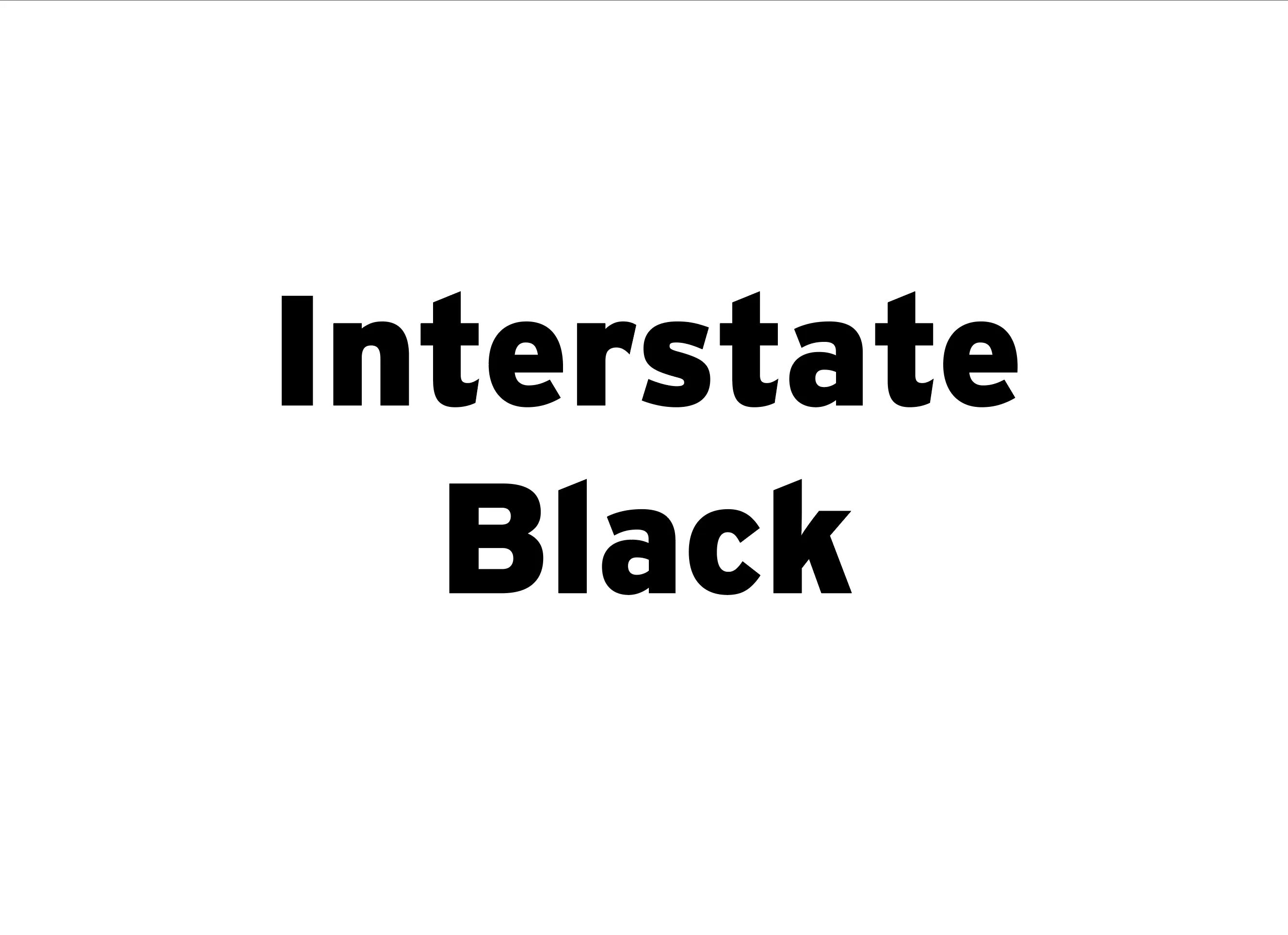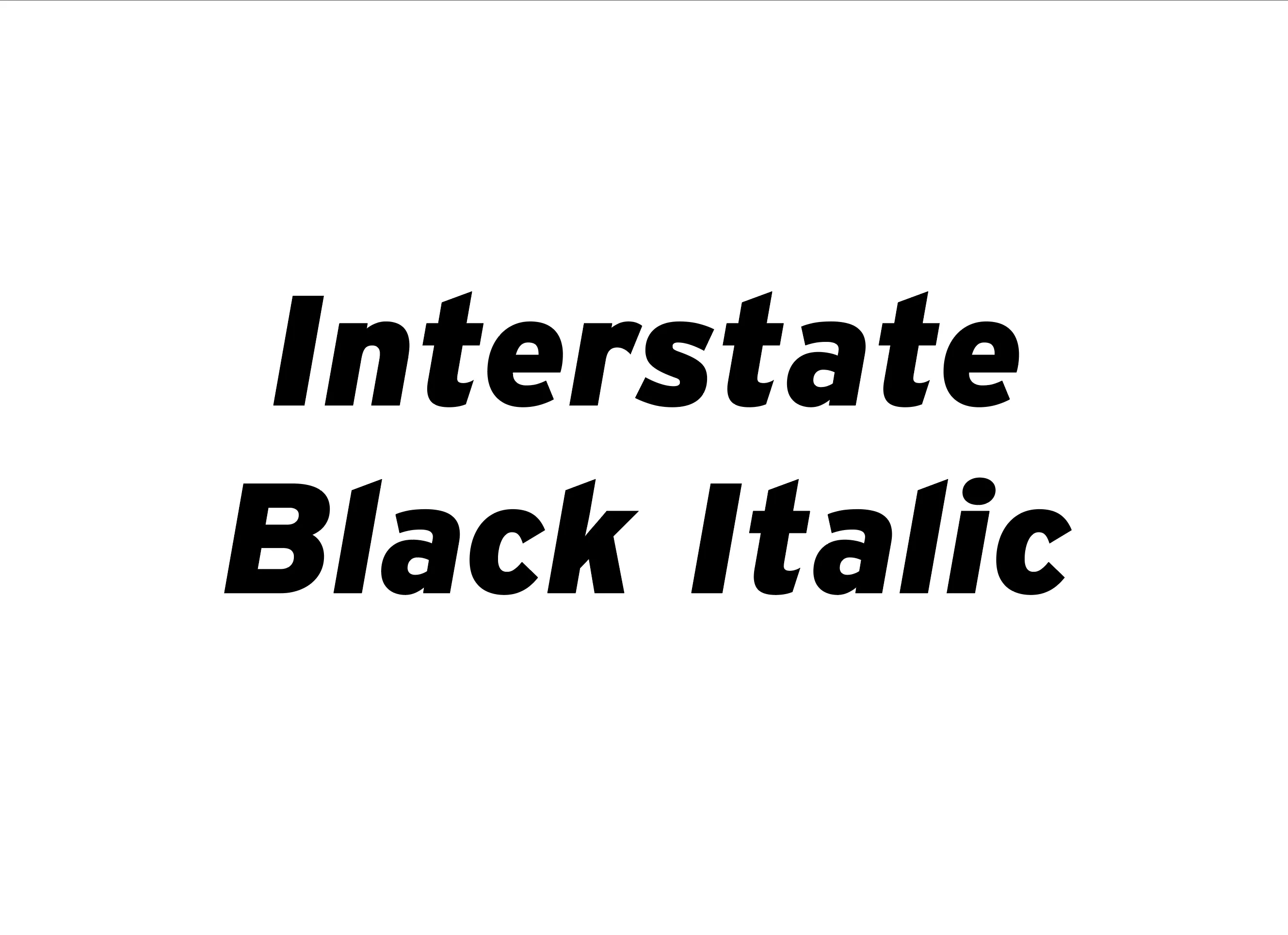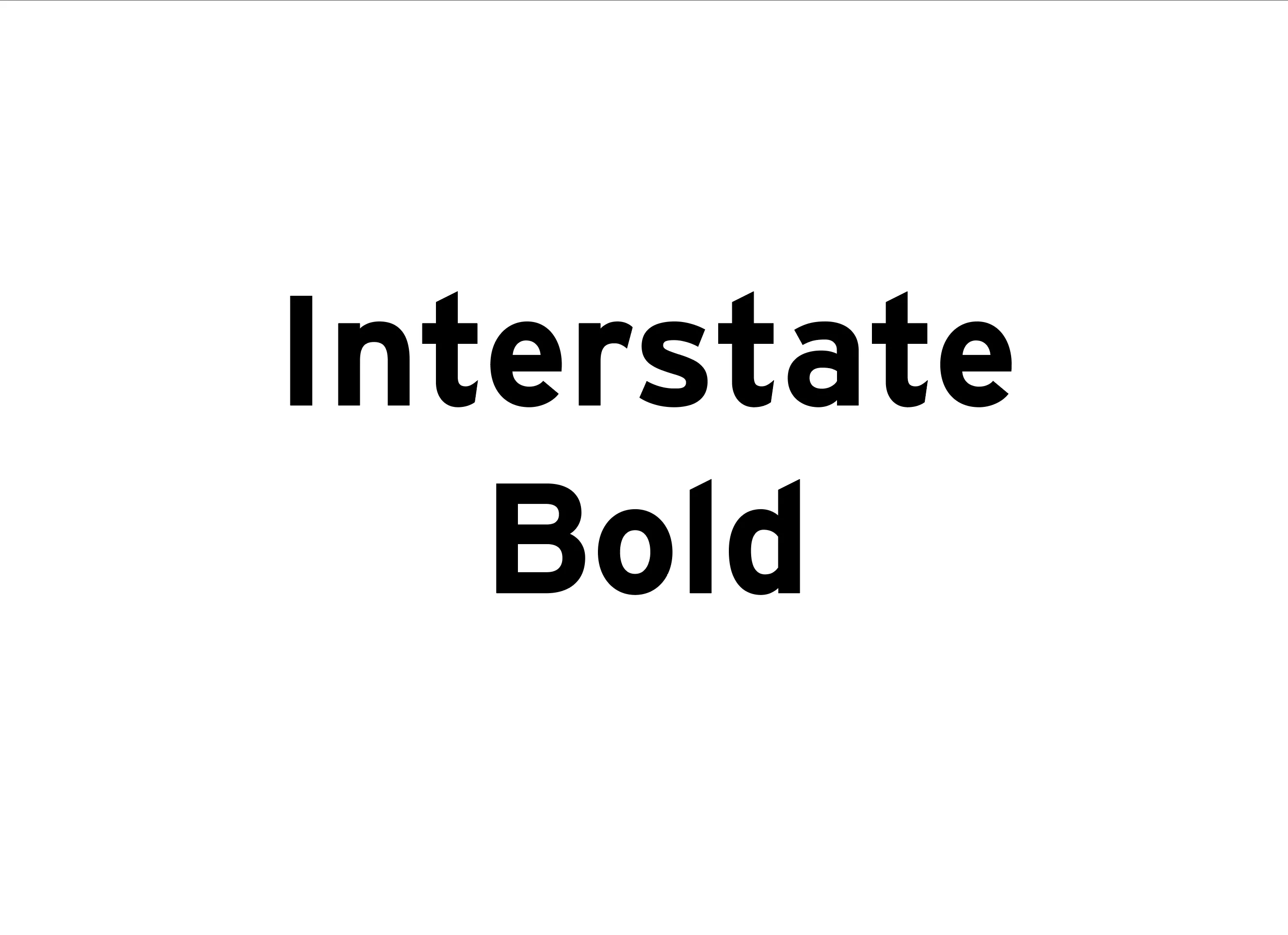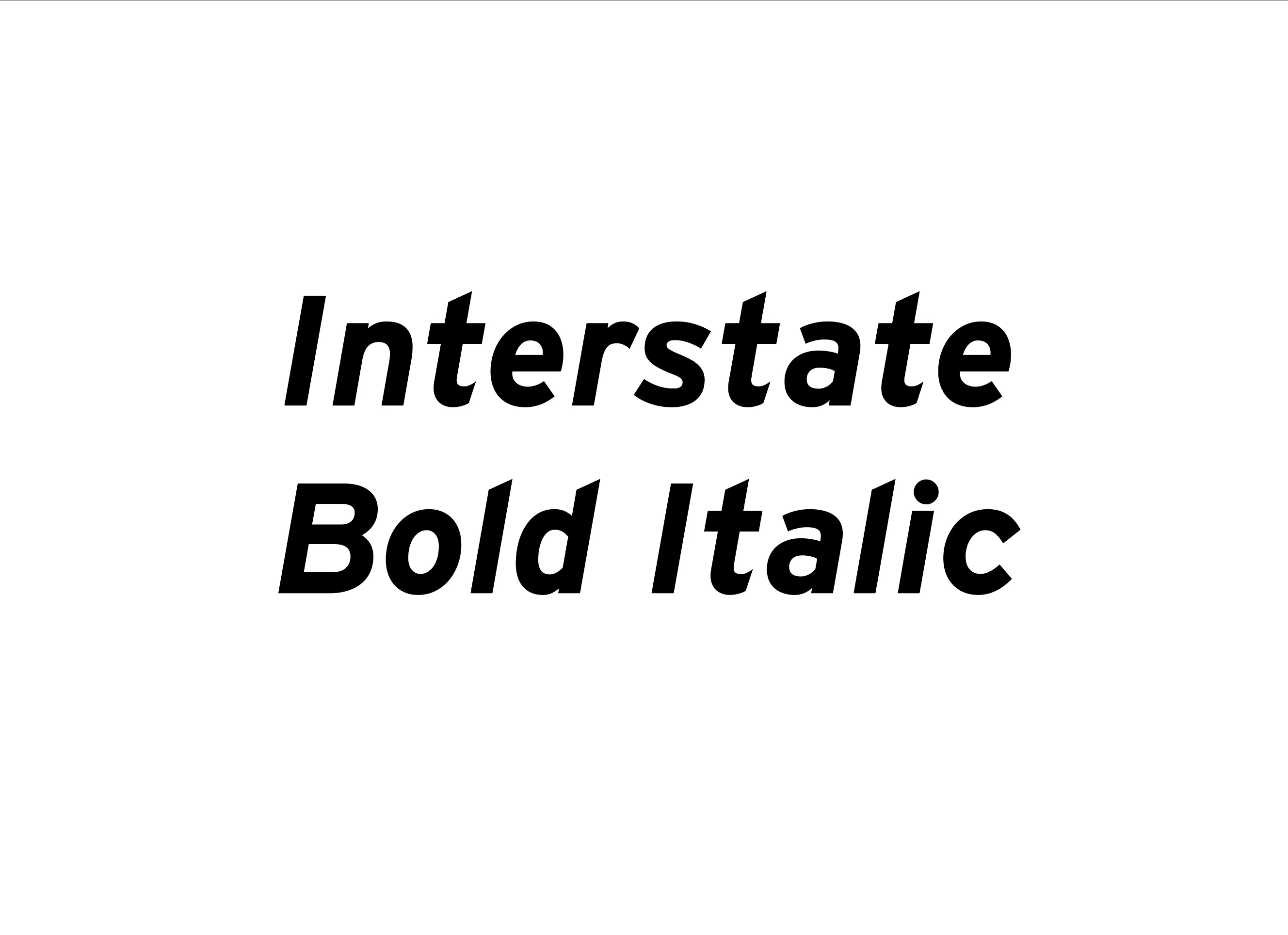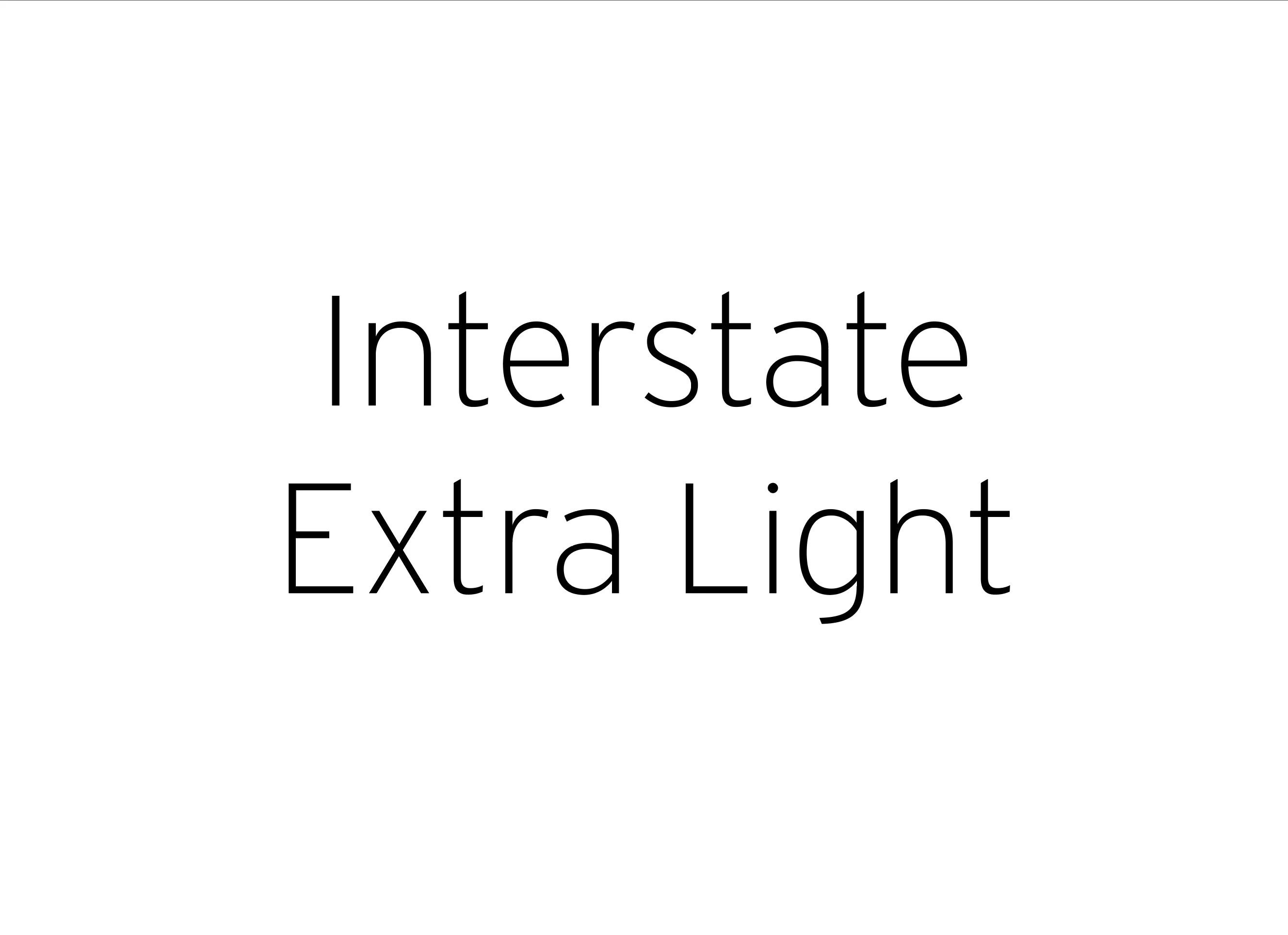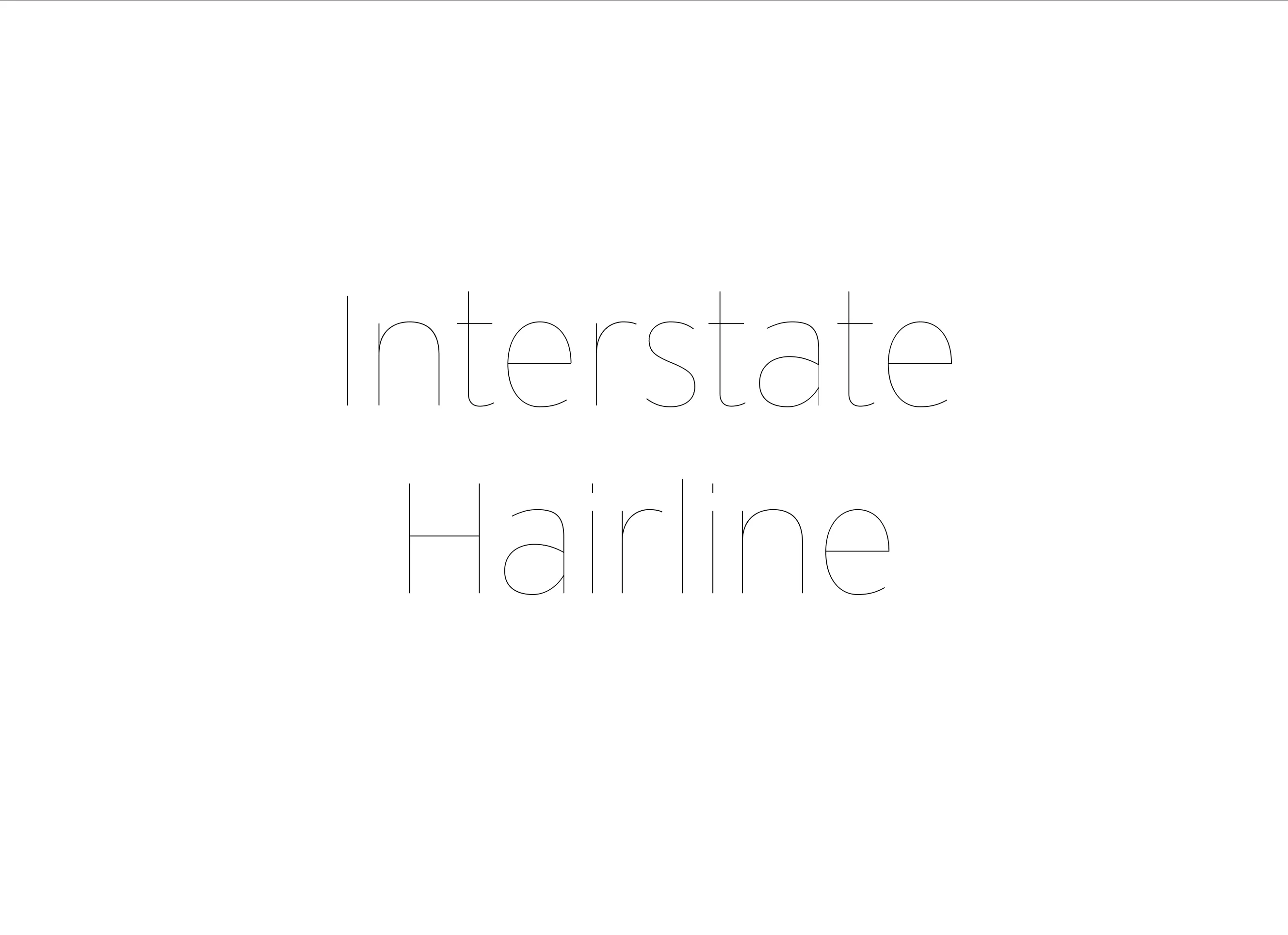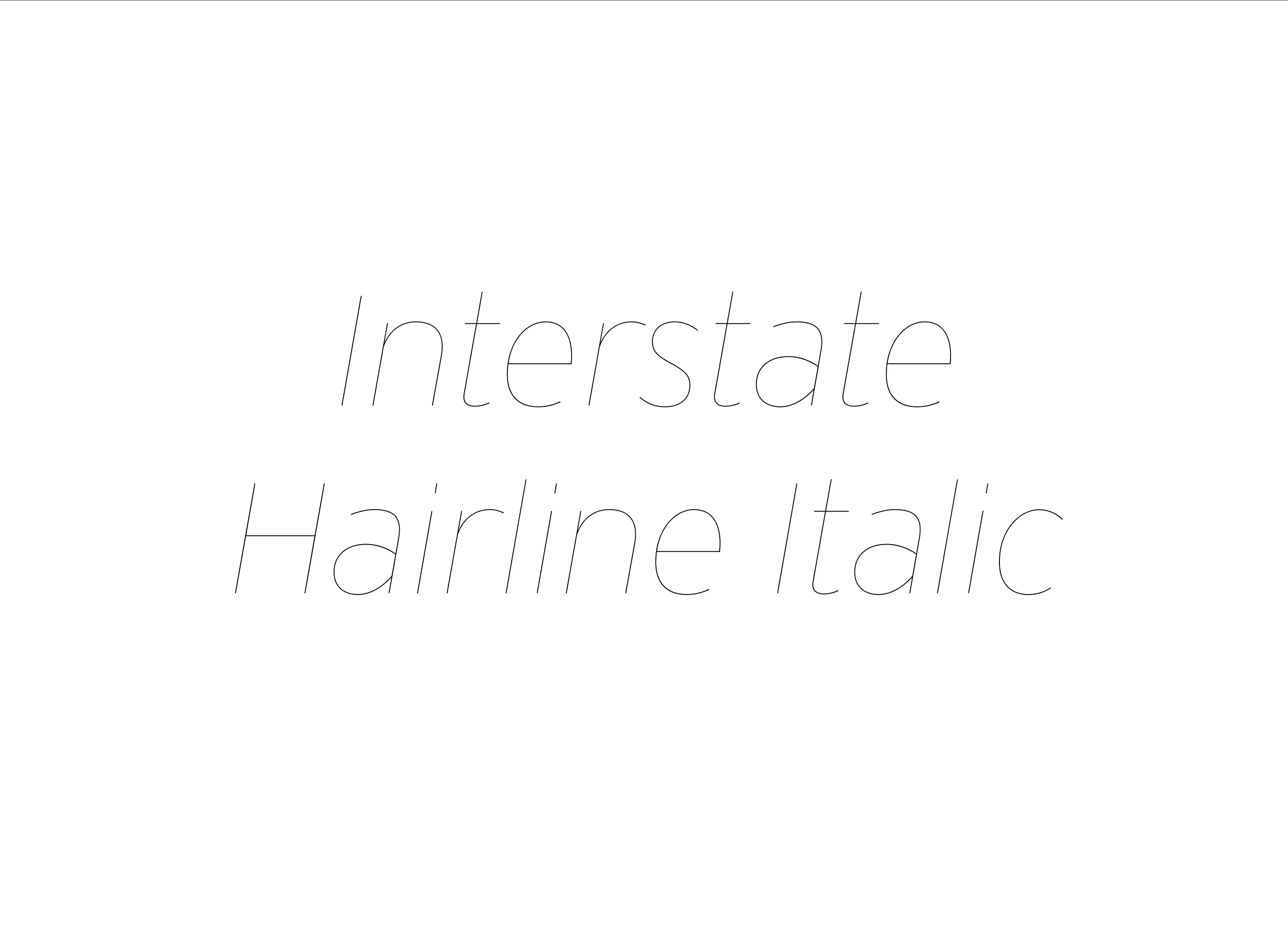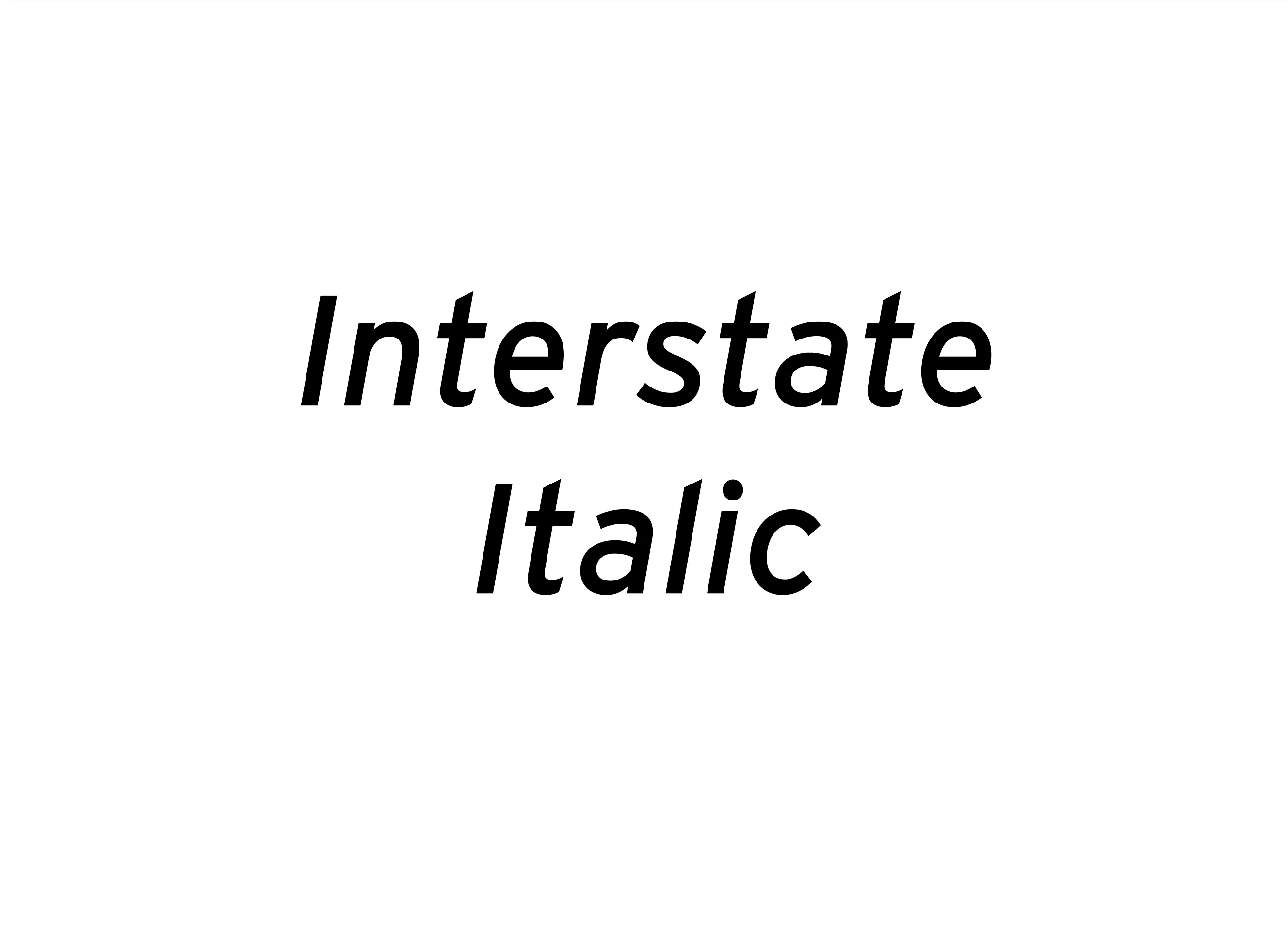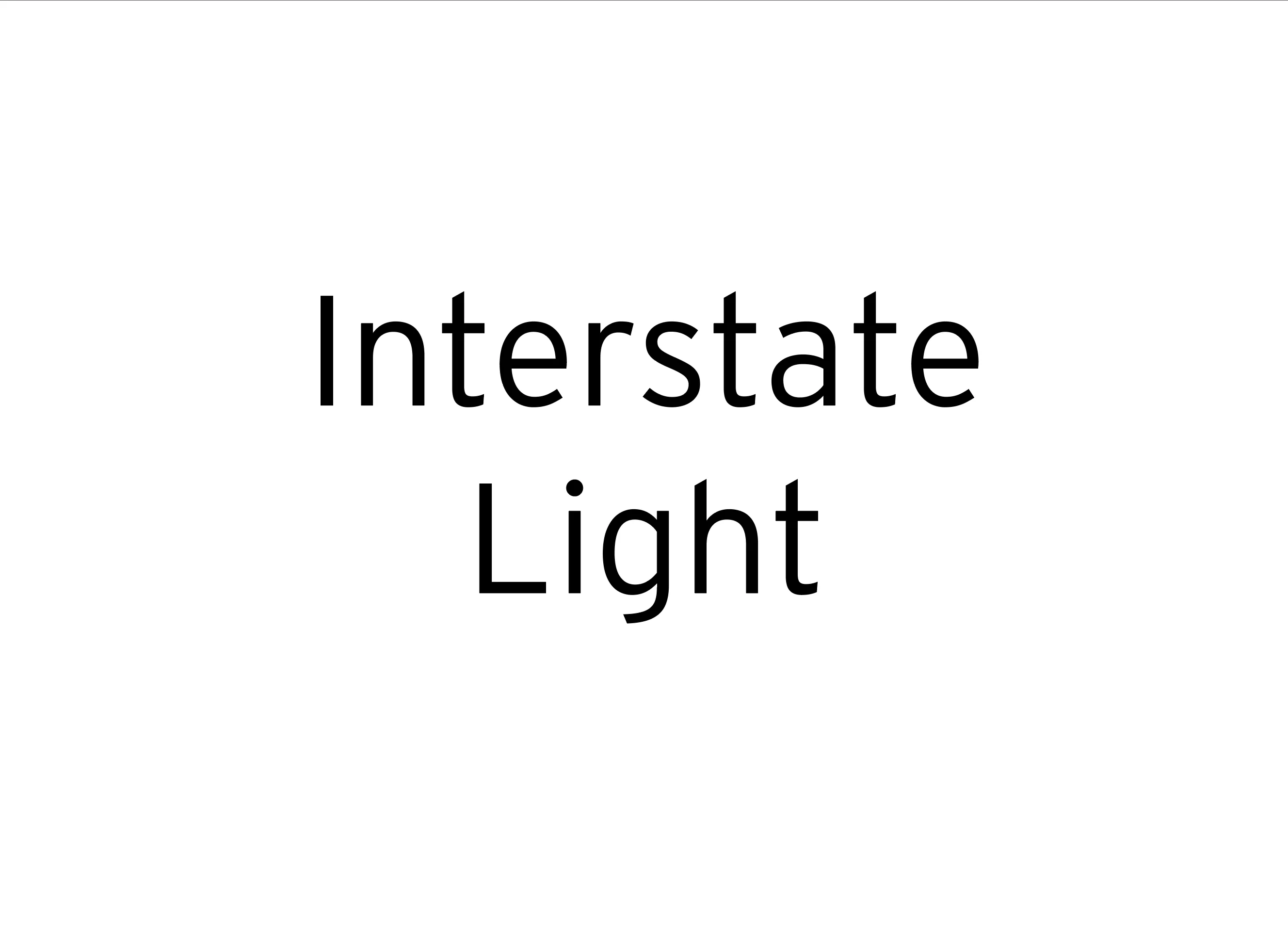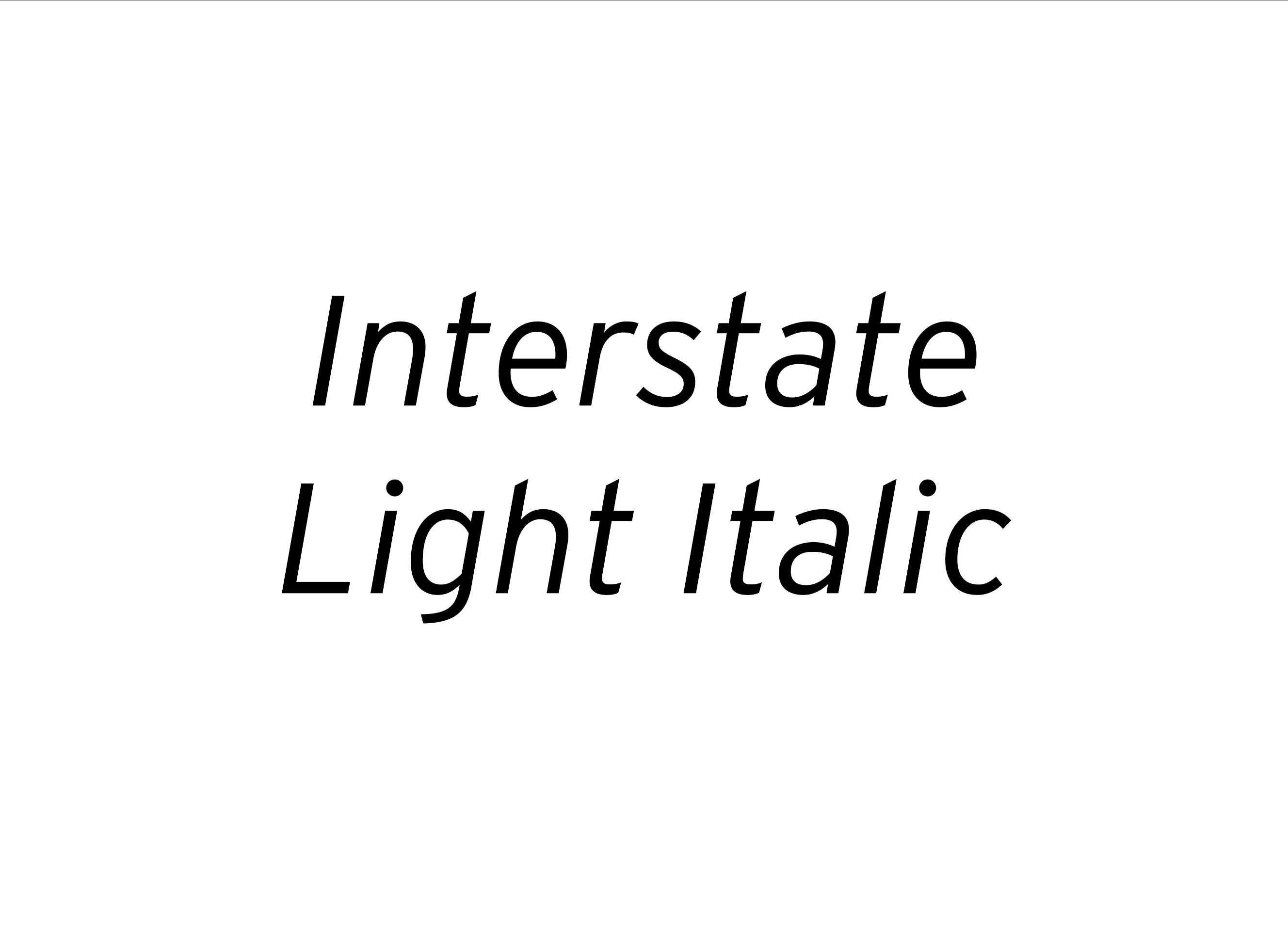
Designed by Tobais Frere-Jones
Because Highway Gothic is used for offical US highway signs, it is not available for download. However, you can find it on the highway, or you can find similar typeface called Interstate also designed by Tobias Frere-Jones below.